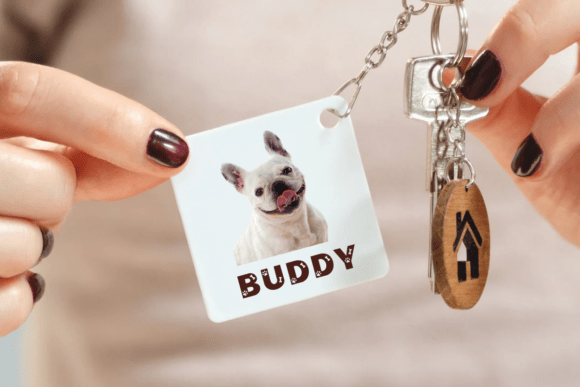
Dog Font
Dog Font is a fun and playful decorative typeface inspired by man’s best friend. Featuring adorable paw prints and bones integrated into bold letterforms, it’s perfect for pet-related logos, children’s designs, signage, and anything needing a tail-wagging touch of charm.